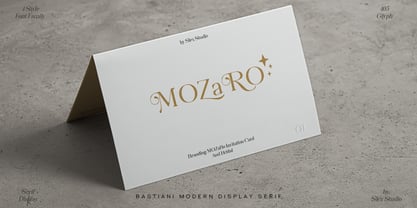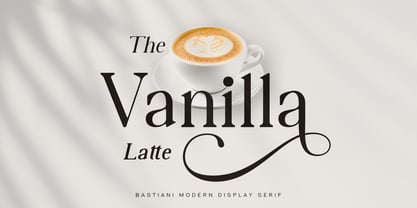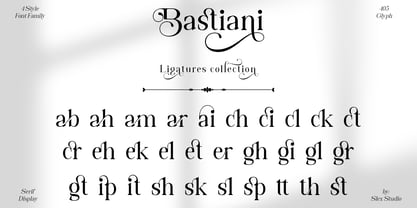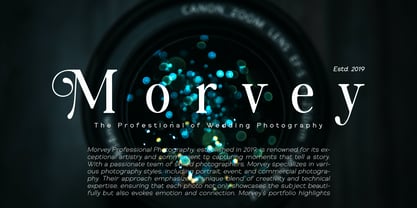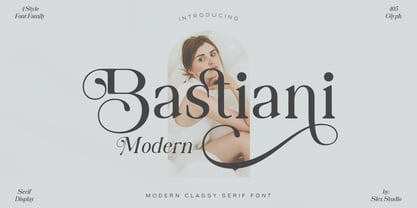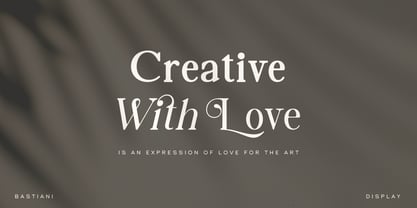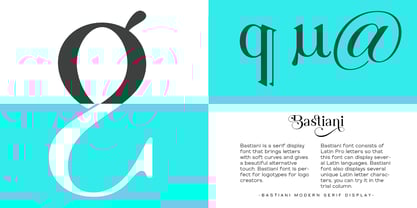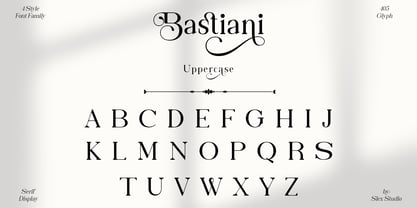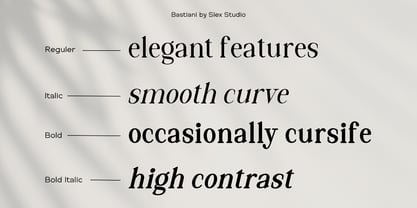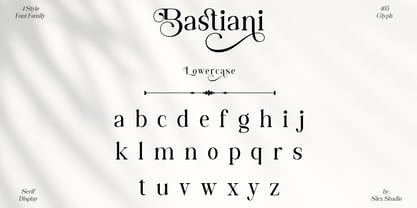
Bastiani Modern
by Slex Studio
The Bastiani Modern Font Family was designed by Muhammad Rayyan and published by Slex Studio. Bastiani Modern contains 4 styles and family package options.
Bastiani Modern is a refined display serif font characterized by its smooth, rounded serifs that offer a soft, welcoming feel. Unlike traditional serif fonts with sharp or angular serifs, Bastiani Modern embraces a more gentle, rounded approach, giving it a contemporary yet elegant personality. The rounded serifs blend seamlessly with the clean, geometric structure of the letterforms, creating a harmonious balance between modern aesthetics and classical influences.
This font features smooth curves and a subtle, refined contrast in stroke weights, which enhance its readability while maintaining a bold presence in larger sizes. Bastiani Modern is perfect for designs that require a sophisticated, yet approachable typeface. Its soft-edged serifs make it versatile for various high-impact applications such as editorial titles, brand identities, luxury goods, and creative advertising.
The font exudes a sense of modernity and grace, making it a great choice for projects where both legibility and style are paramount. Whether used for upscale branding or striking headlines, Bastiani Modern offers a distinctive, modern look with a touch of classic charm.